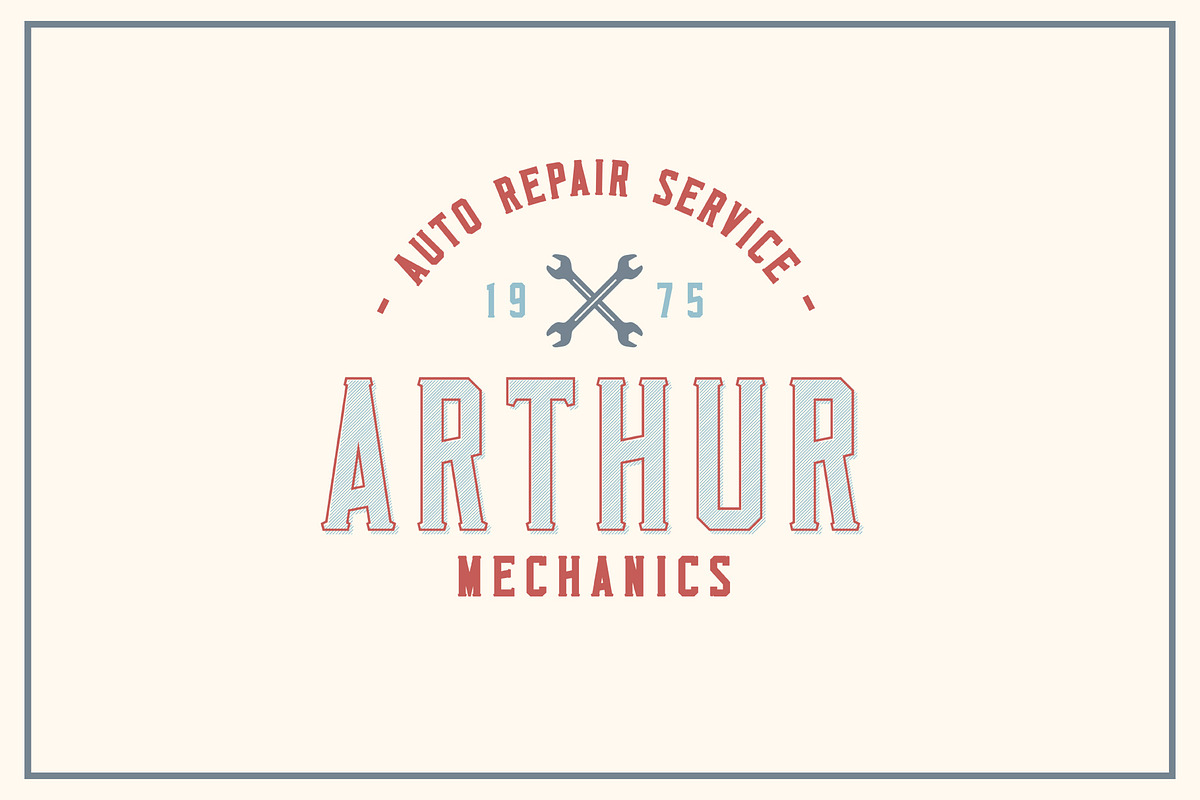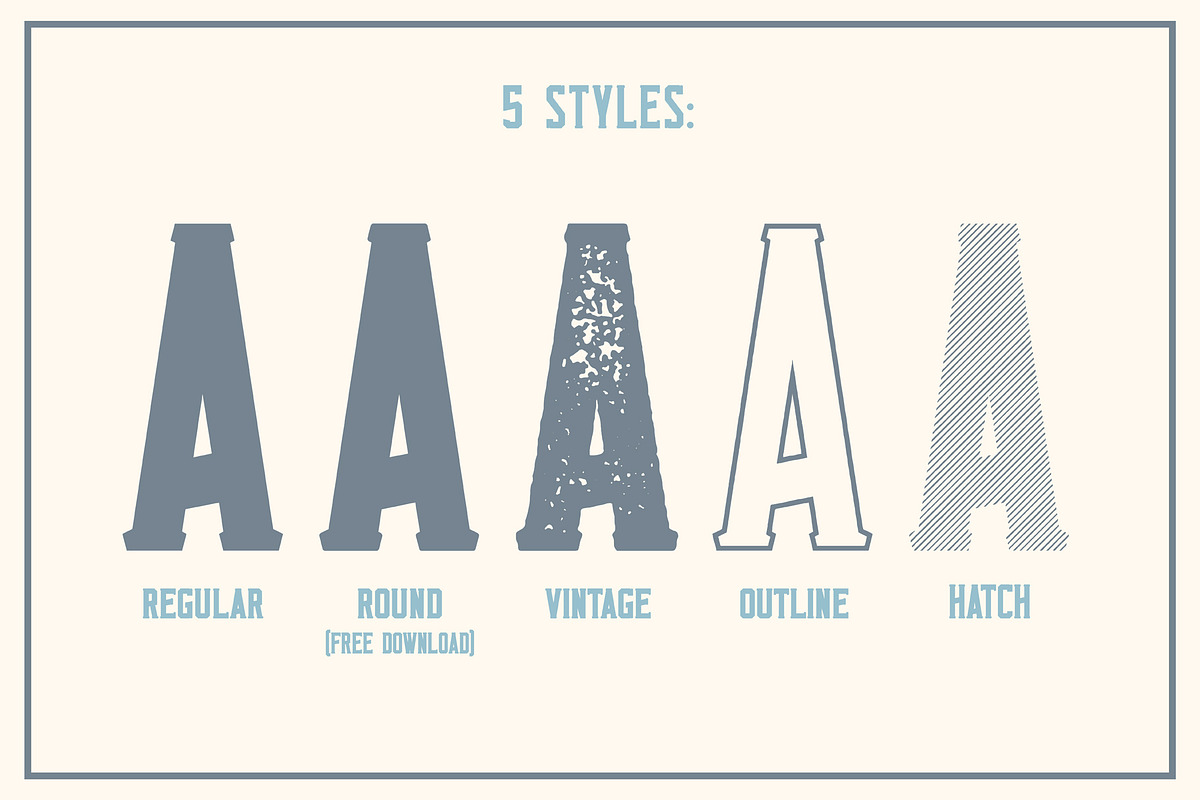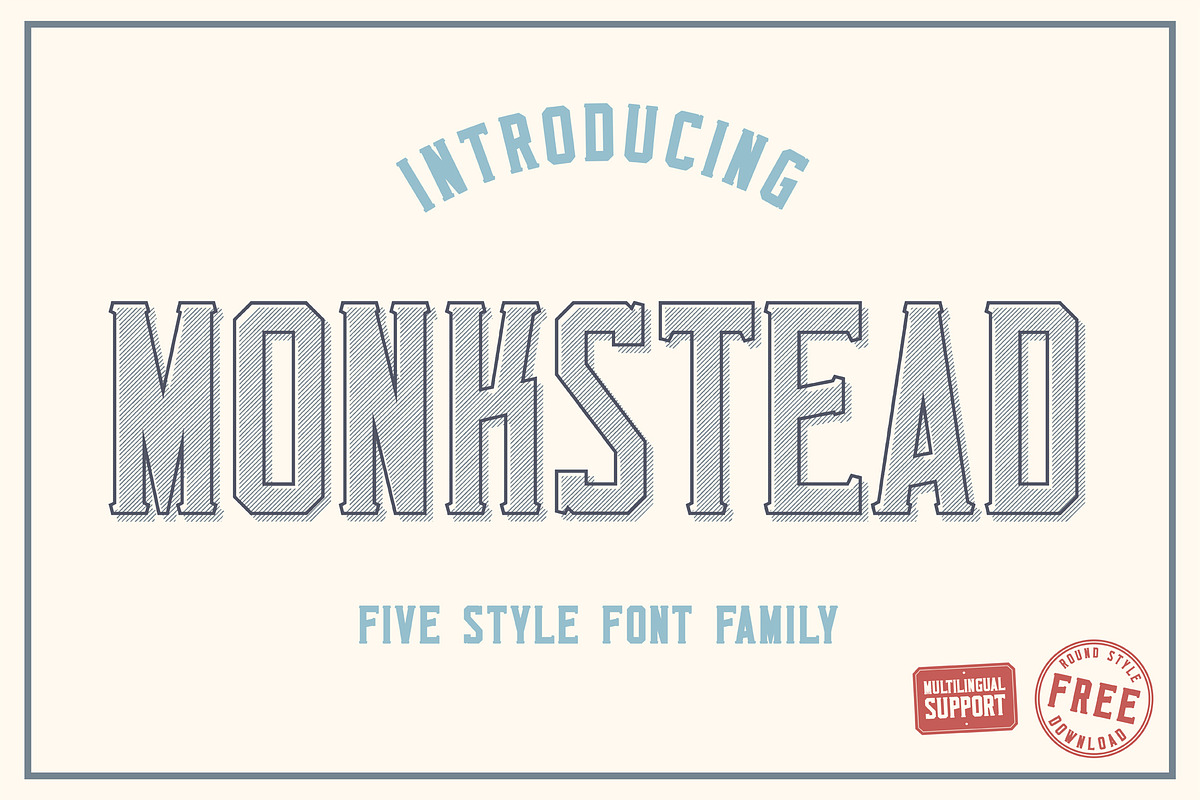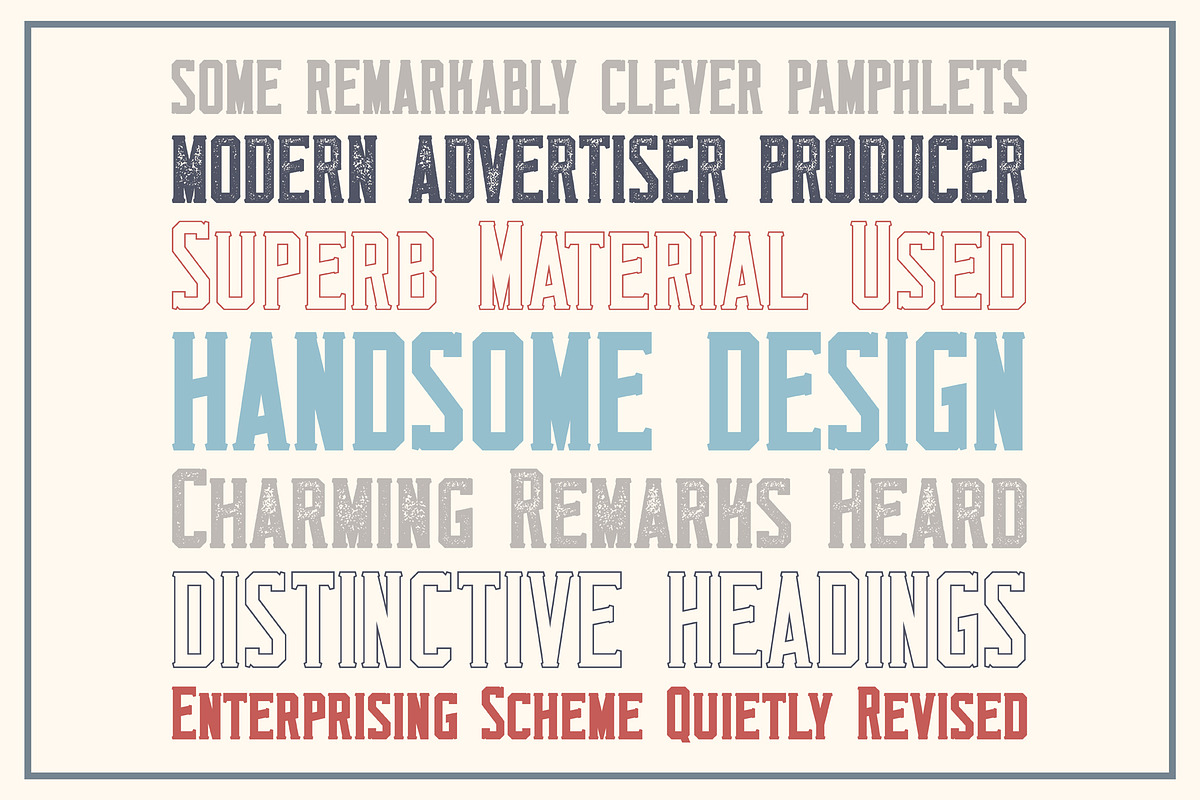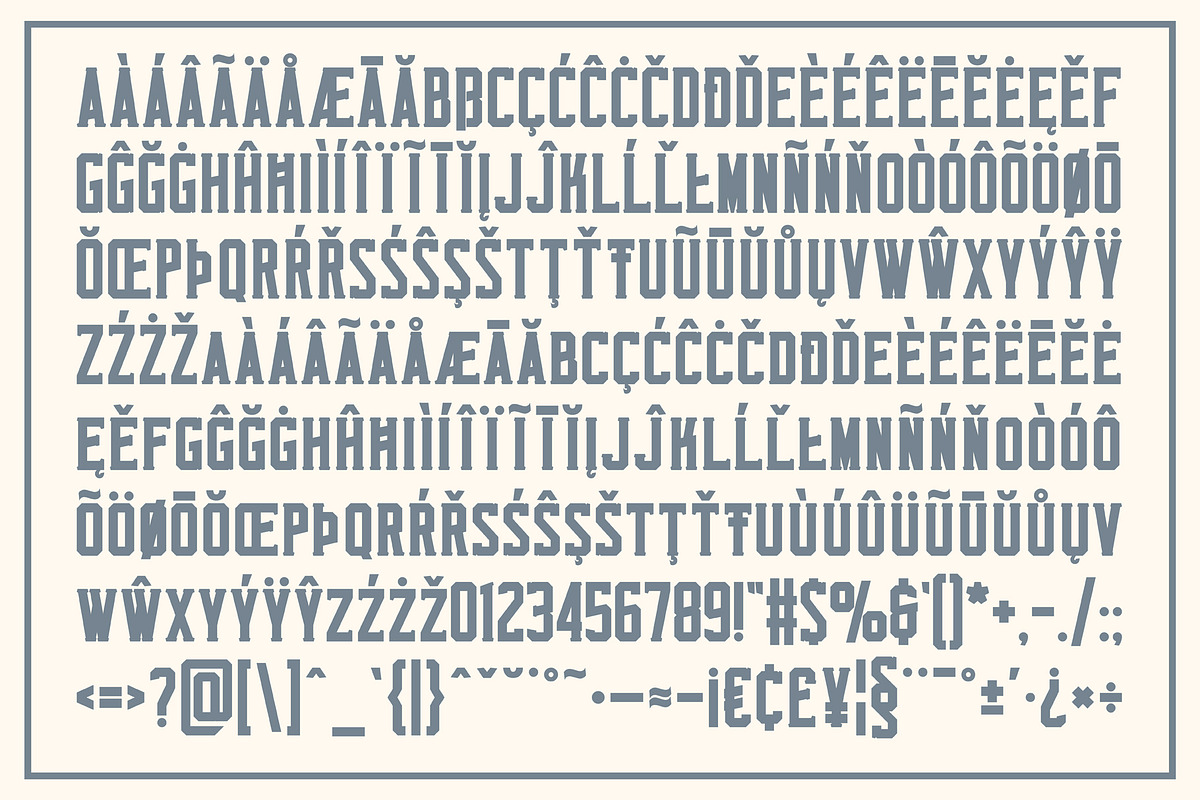
Monkstead Font Family
Monkstead is a serif block display typeface that is great for logos, titles and headlines. Carefully handcrafted and inspired by retro headlines, labels and posters. Monkstead Family comes with 5 styles: Regular, Round, Vintage, Outline and Hatch.
Danish, English, Finnish, French, German, Icelandic, Irish, Italian, Norwegian, Portuguese, Polish, Spanish, Swedish, if you not sure with it please type it out in the text box below or check Characters Map screenshots, i hope it will support your language :)
- Monkstead Family comes with 5 styles: Regular, Round, Vintage, Outline and Hatch.
Monkstead Font Family by Bart Wesolek fits naturally into Branding, posters, packaging, typography.